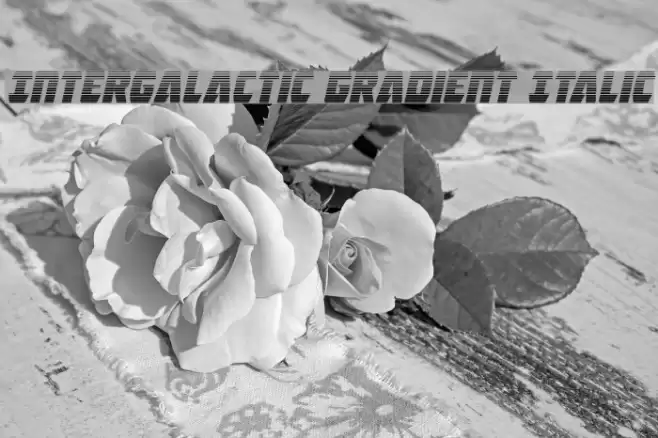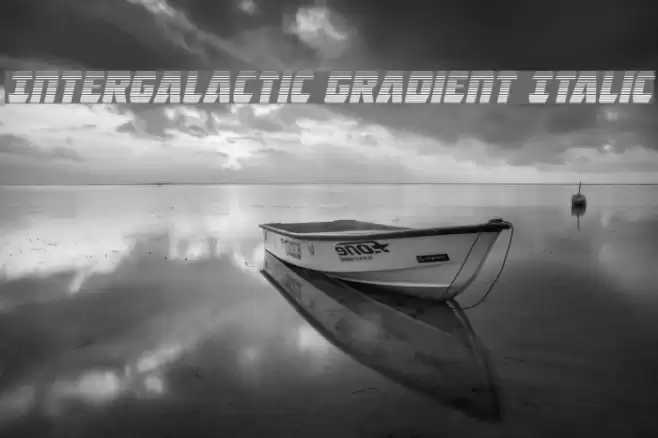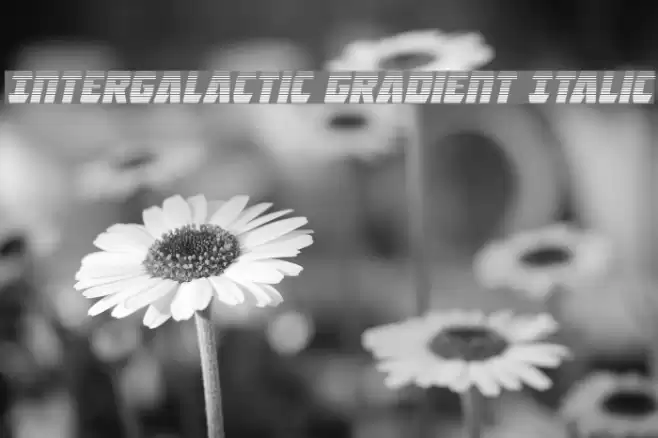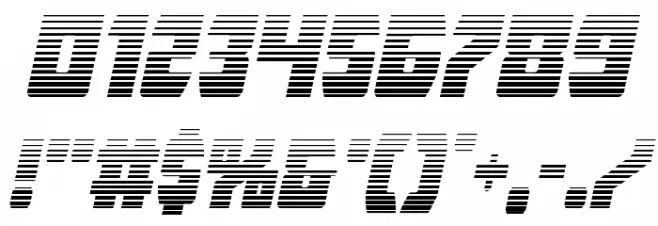
Intergalactic Gradient Italic Font
Intergalactic Gradient Italic Description
This font features a futuristic and dynamic design with a gradient effect that gives the impression of movement and speed. The characters are bold and italicized, with a distinct slanted orientation that enhances its modern appeal. The horizontal lines within each character create a striped pattern, adding depth and a sense of dimensionality. This font is highly stylized, making it ideal for projects that require a strong visual impact. The uppercase and lowercase letters maintain consistency in style, while the numbers and special characters are equally bold and striking.
A bold, italicized font with a futuristic gradient and striped design from Uncategorized fonts.
- Proposed Projects: Ideal for sci-fi themed posters, video game titles, futuristic branding, and technology-related advertisements.
- Overall Style: Futuristic